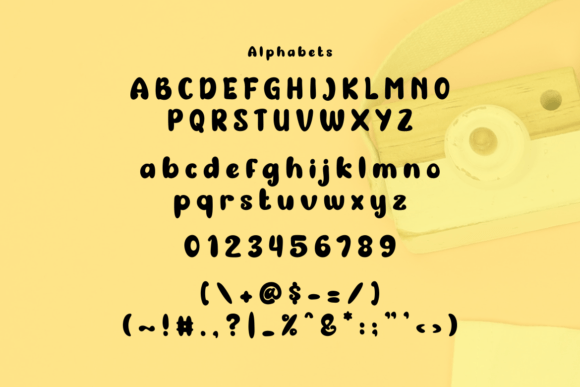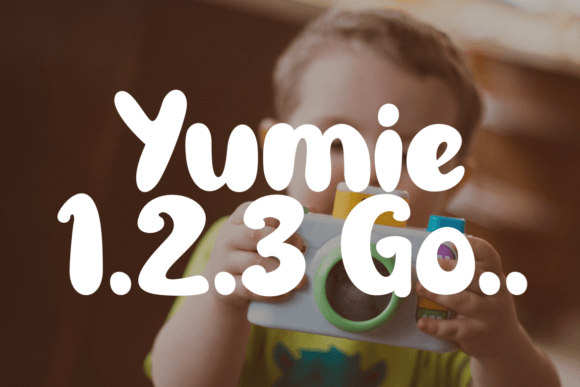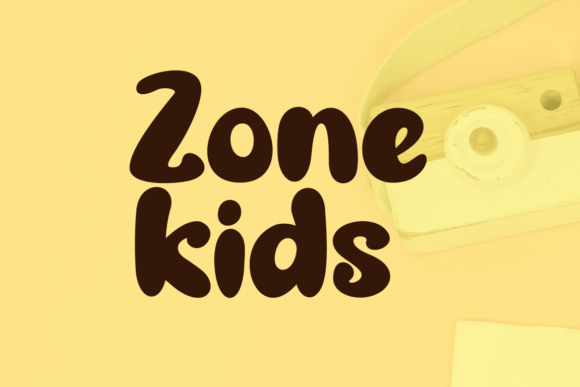
Introduction to Jekids Font
Have you ever stared at a blank canvas, waiting for the perfect font to bring your creative project to life? I know I have. And when it comes to designing for kids, finding the right font can be a challenge. That’s why I’m excited to introduce you to the Jekids Font, a special display font designed specifically for children’s products.
As a designer, you know how important it is to have a high-quality design resource like Jekids Font at your fingertips. With its complete alphabets from upper and lower case letters, this font is perfect for baby, toddler, and even elementary school products. Plus, with a transparent background, you can easily customize your designs to fit your creative vision.
Key Features of Jekids Font
- High-quality, unique design for creative projects and design resources
- Supports transparent background, allowing for versatile design applications
- Includes a range of characters, including uppercase and lowercase letters, numbers, and punctuation marks
- Perfect for designers, artists, and creatives seeking a distinctive and professional design resource
Honest Review: Jekids Font
I recently stumbled upon the Jekids Font, and I must say it’s a great addition to any designer’s toolkit. The font is a free download, which is always a plus, and it’s perfect for any creative project that requires a modern and playful touch.
Here’s what works well about the Jekids Font:
- ✨ High-quality design: The font is well-crafted and visually appealing, making it perfect for logos, headings, and titles.
- ✨ Versatile: The Jekids Font is suitable for a wide range of creative projects, from children’s books to digital products and marketing materials.
- ⚠️ Limited styles: The Jekids Font only comes in a few styles, which might limit its versatility for more complex design projects.
- ⚠️ Not ideal for text-heavy content: The font is best suited for headings and titles, as the transparent background can make text-heavy content difficult to read.
Overall, I’m impressed with the Jekids Font and would definitely recommend it to designers who are looking for a high-quality, free design resource. While it has some limitations, it’s a great addition to any designer’s toolkit and can help take creative projects to the next level.
Tips for Getting the Most Out of Jekids Font
Experiment with different font sizes, colors, and styles to get the most out of Jekids Font. You can also combine it with other design resources to create a unique and visually appealing design.
Jekids Font is ideal for designing logos, social media graphics, presentations, and reports. Its transparent background feature makes it perfect for creating graphics with a clear background. It’s also a great design resource for creatives who want to add a unique touch to their projects.